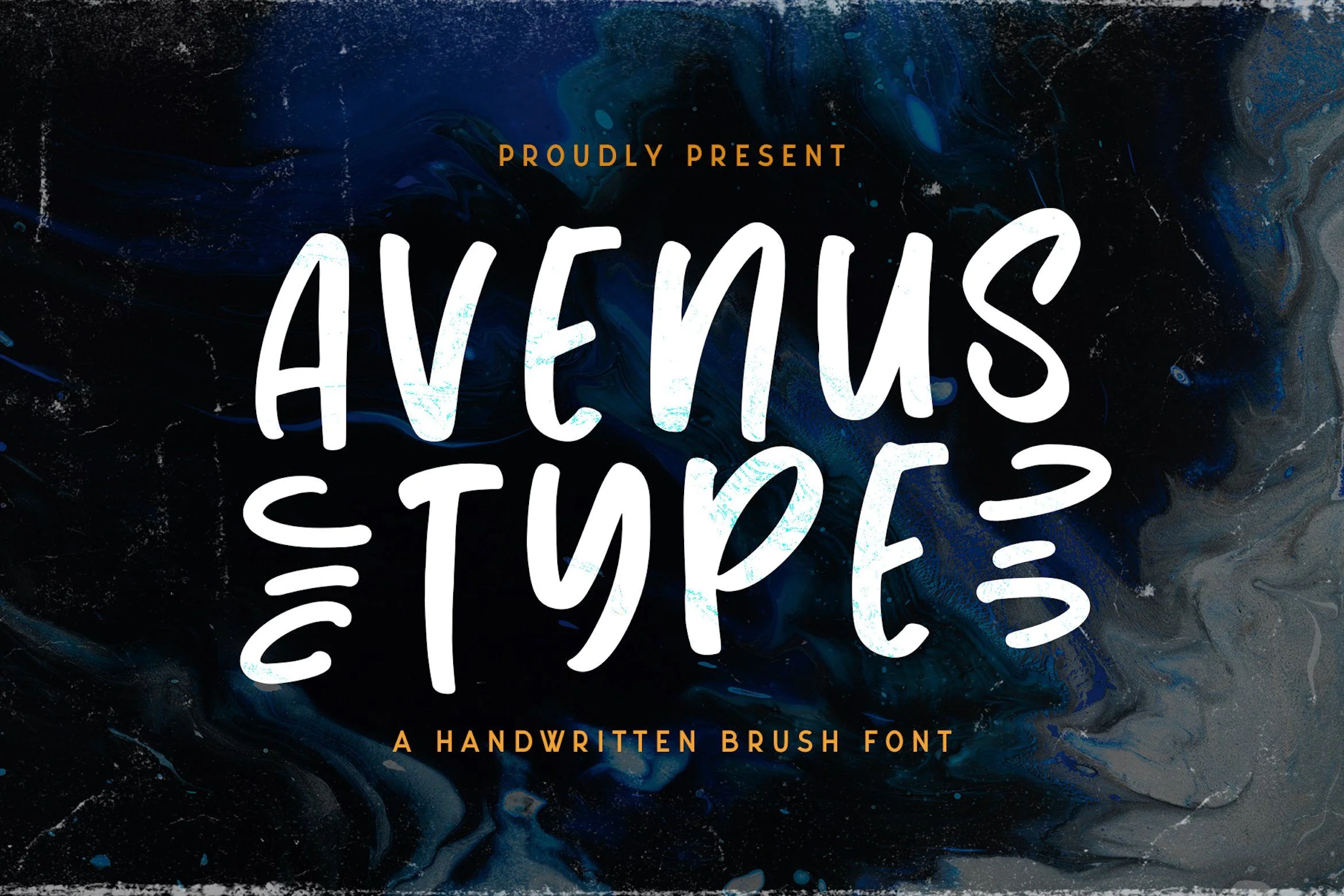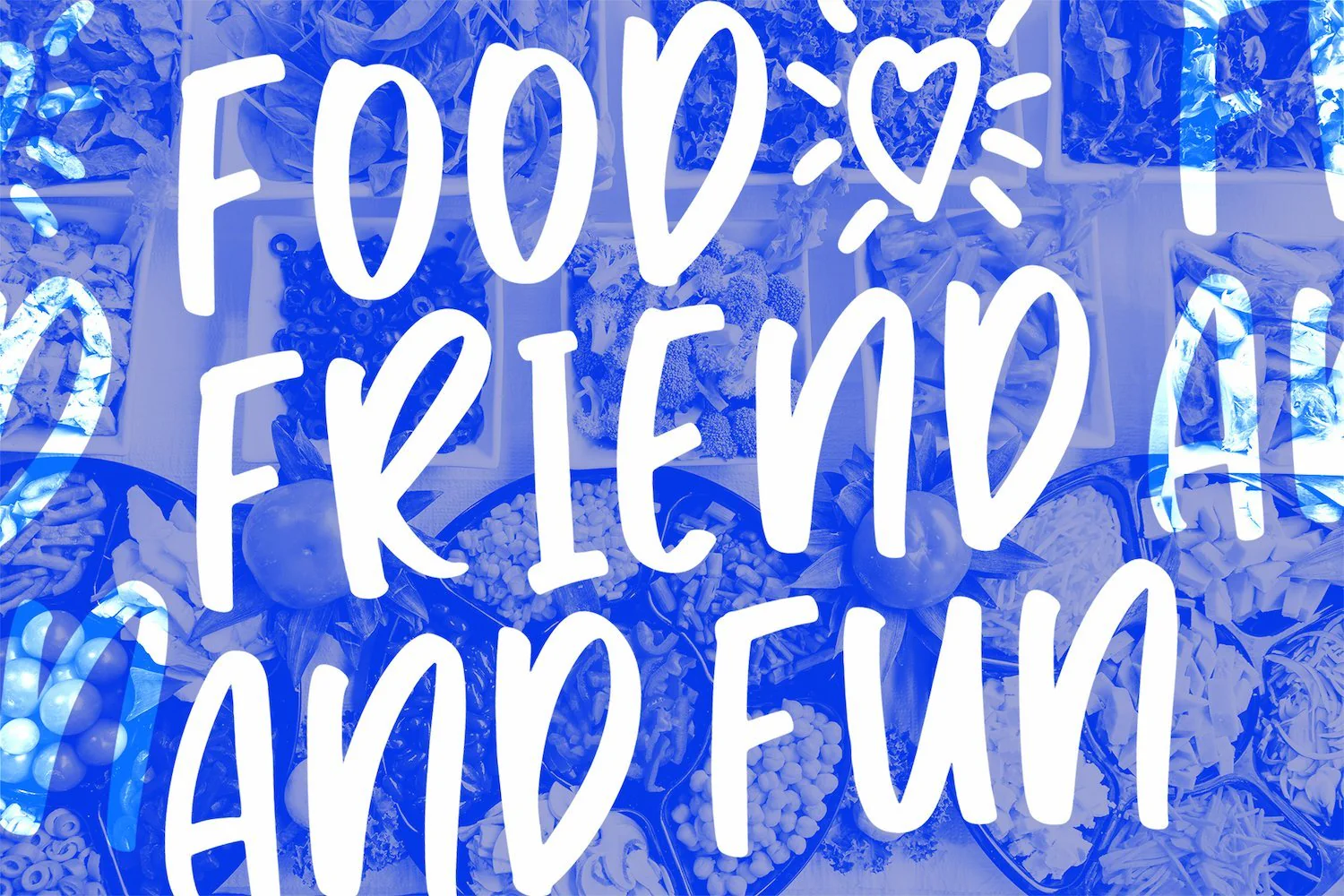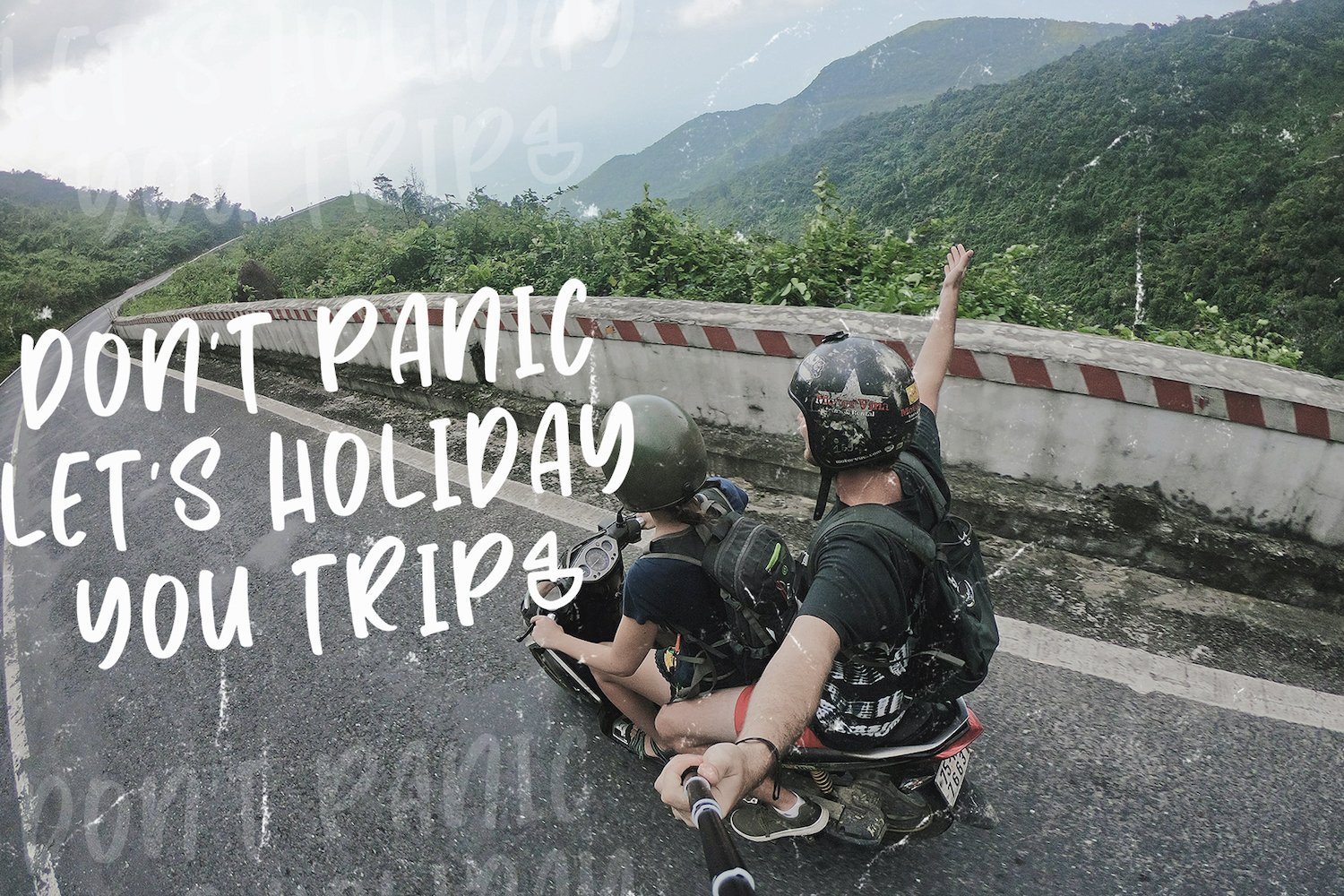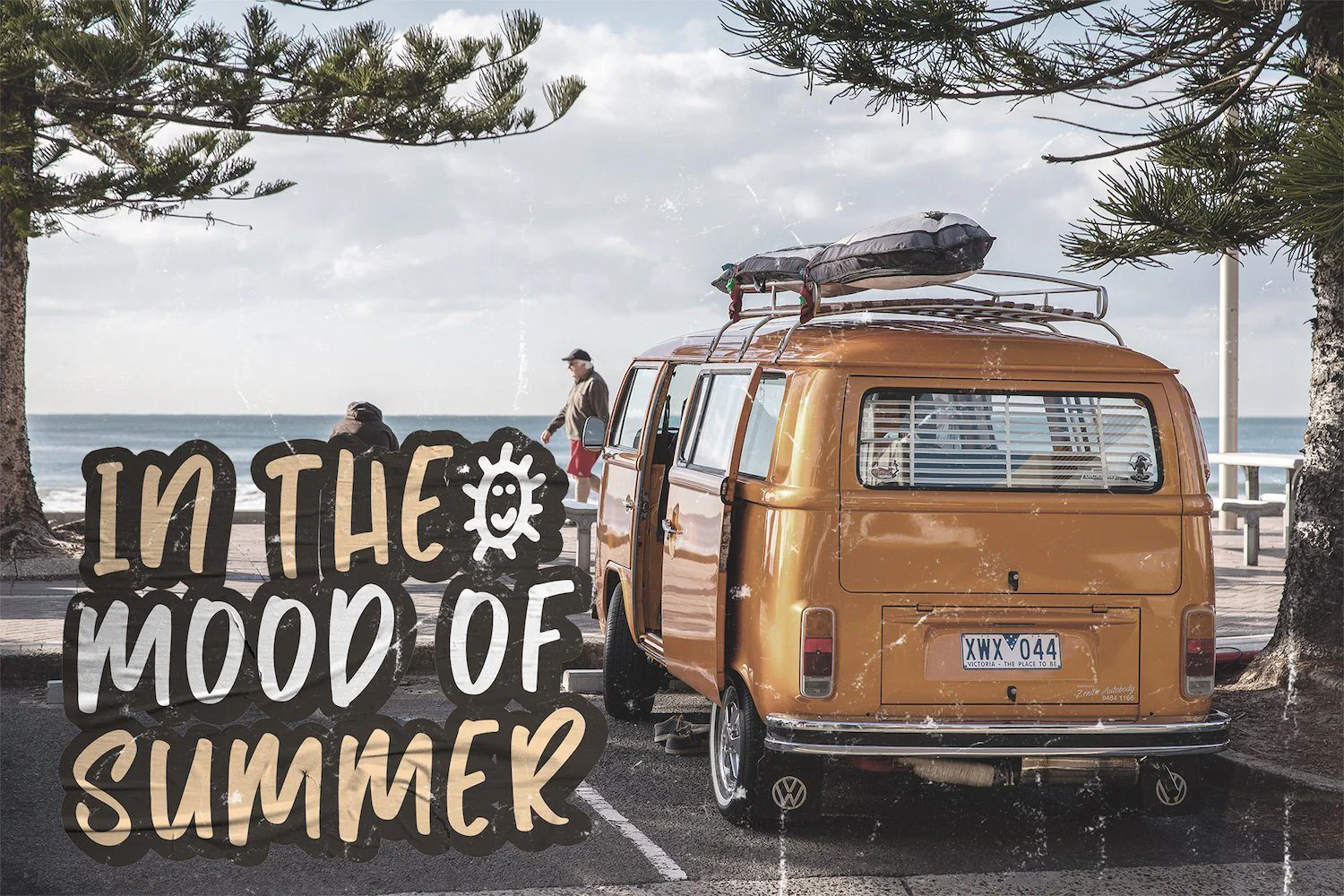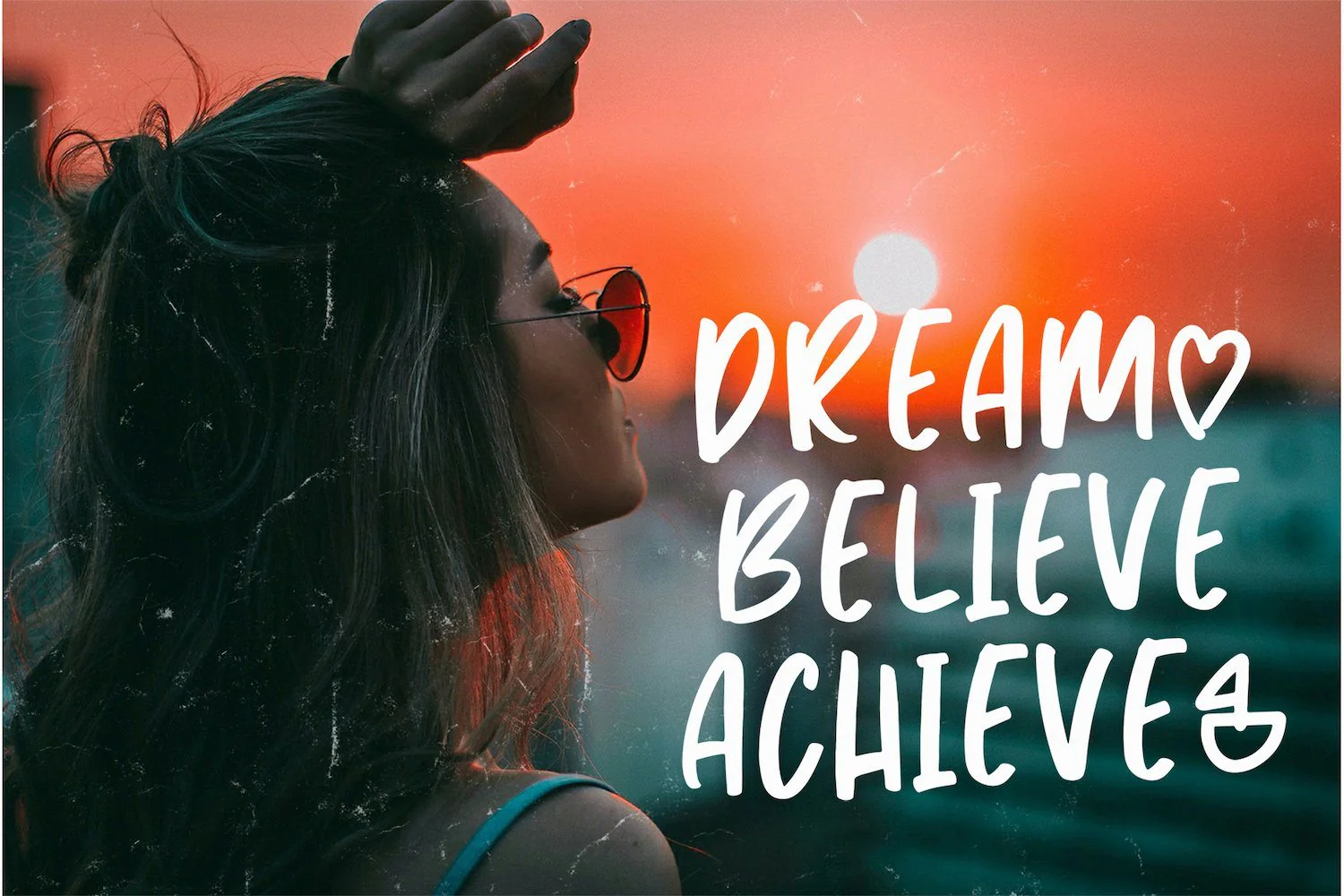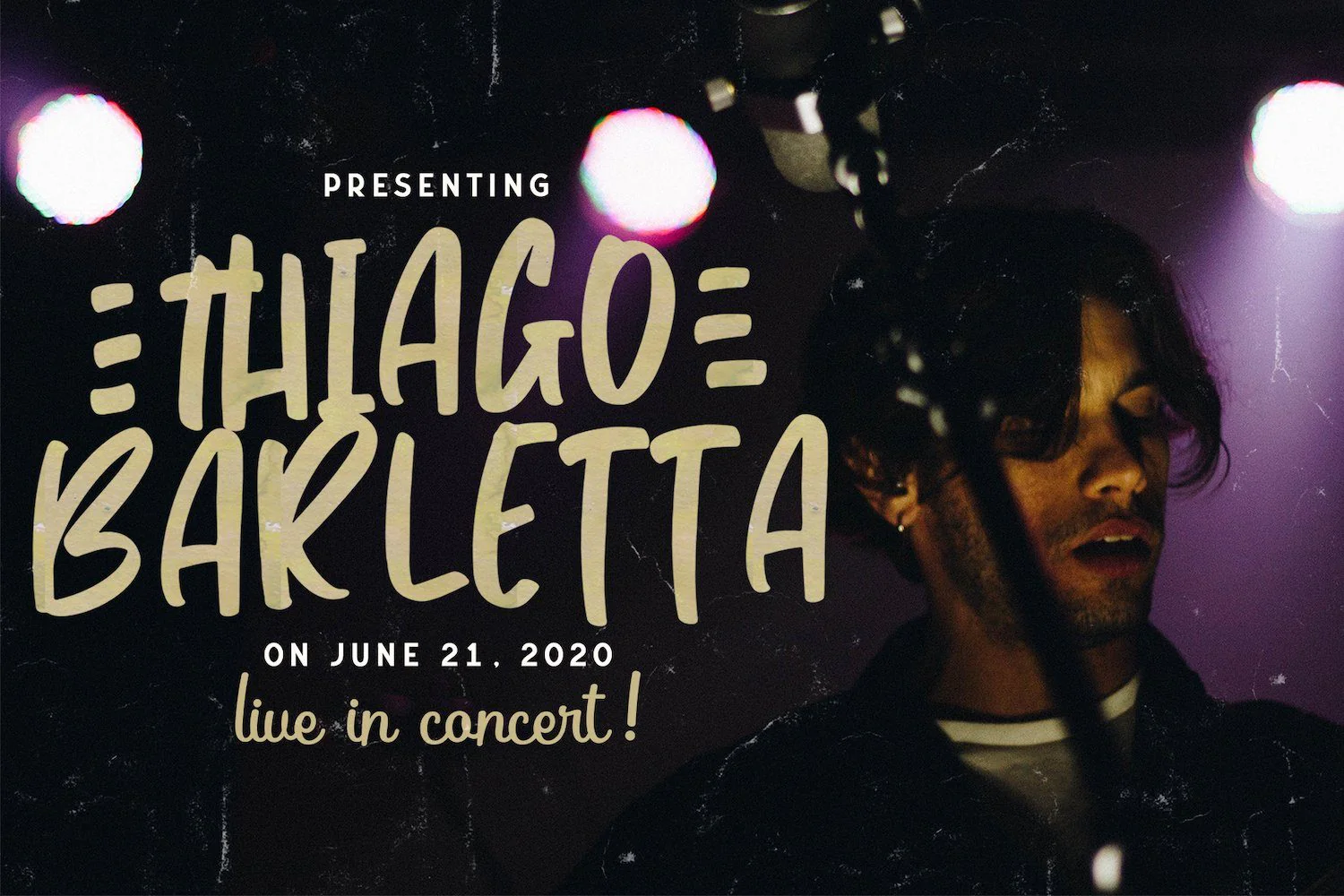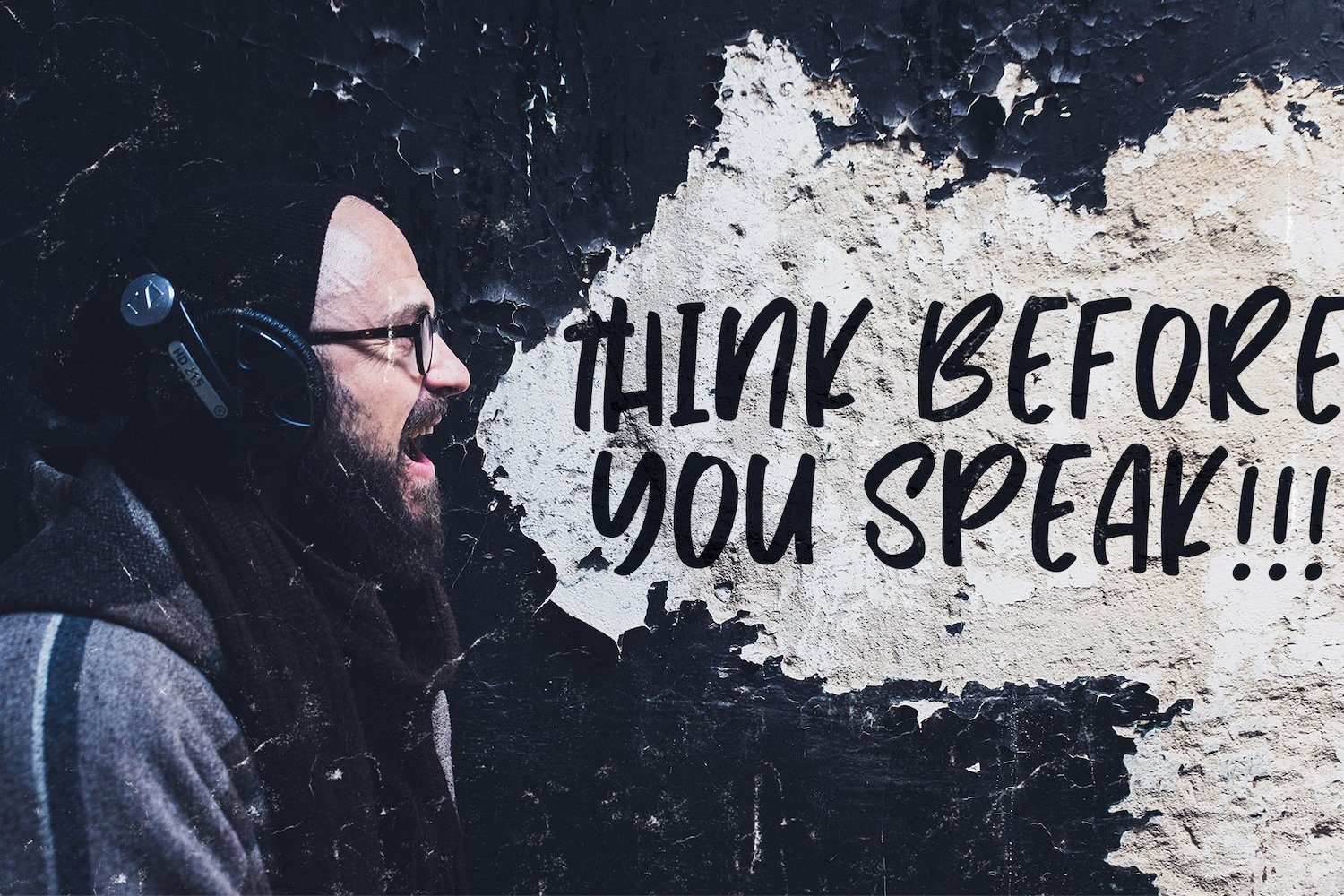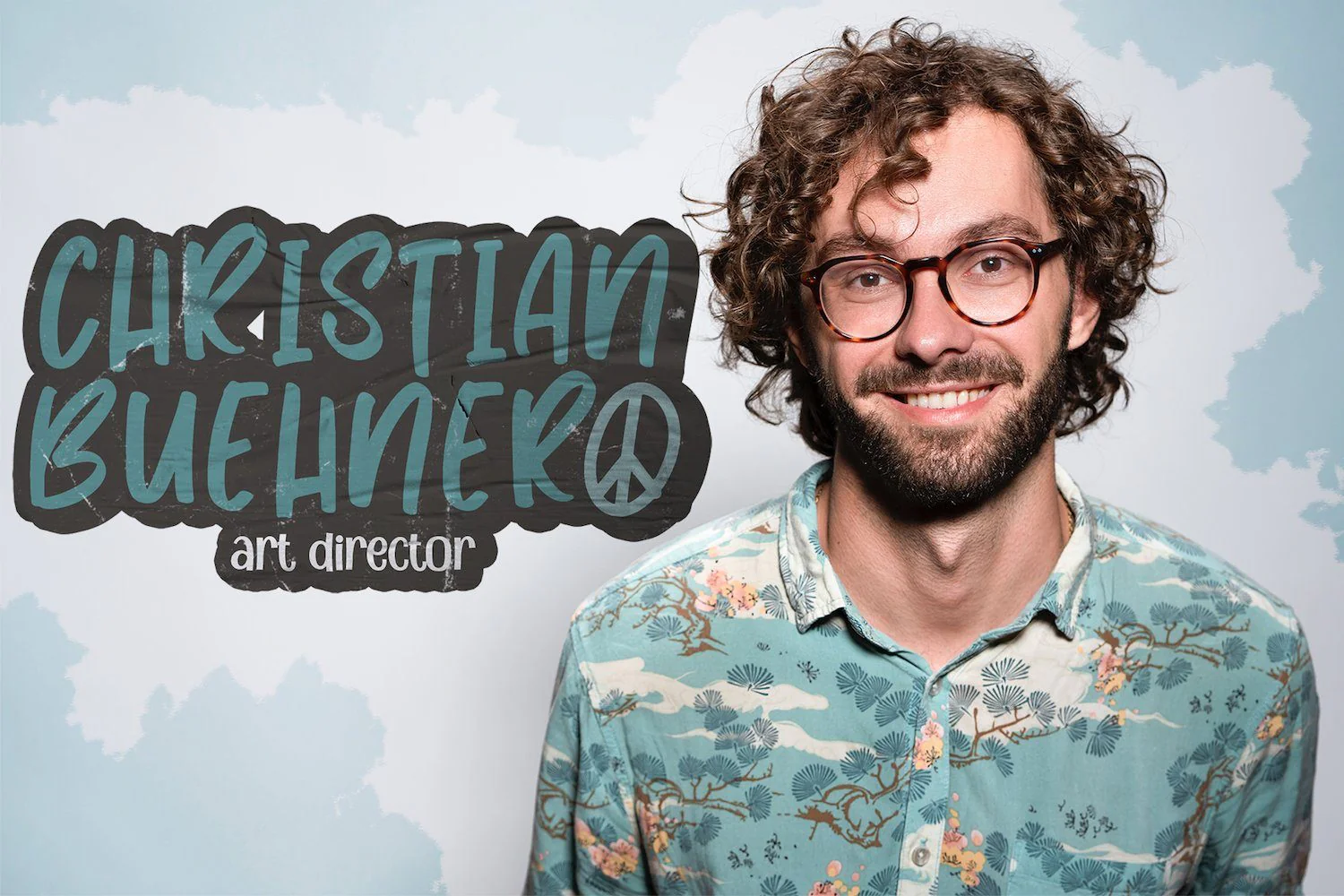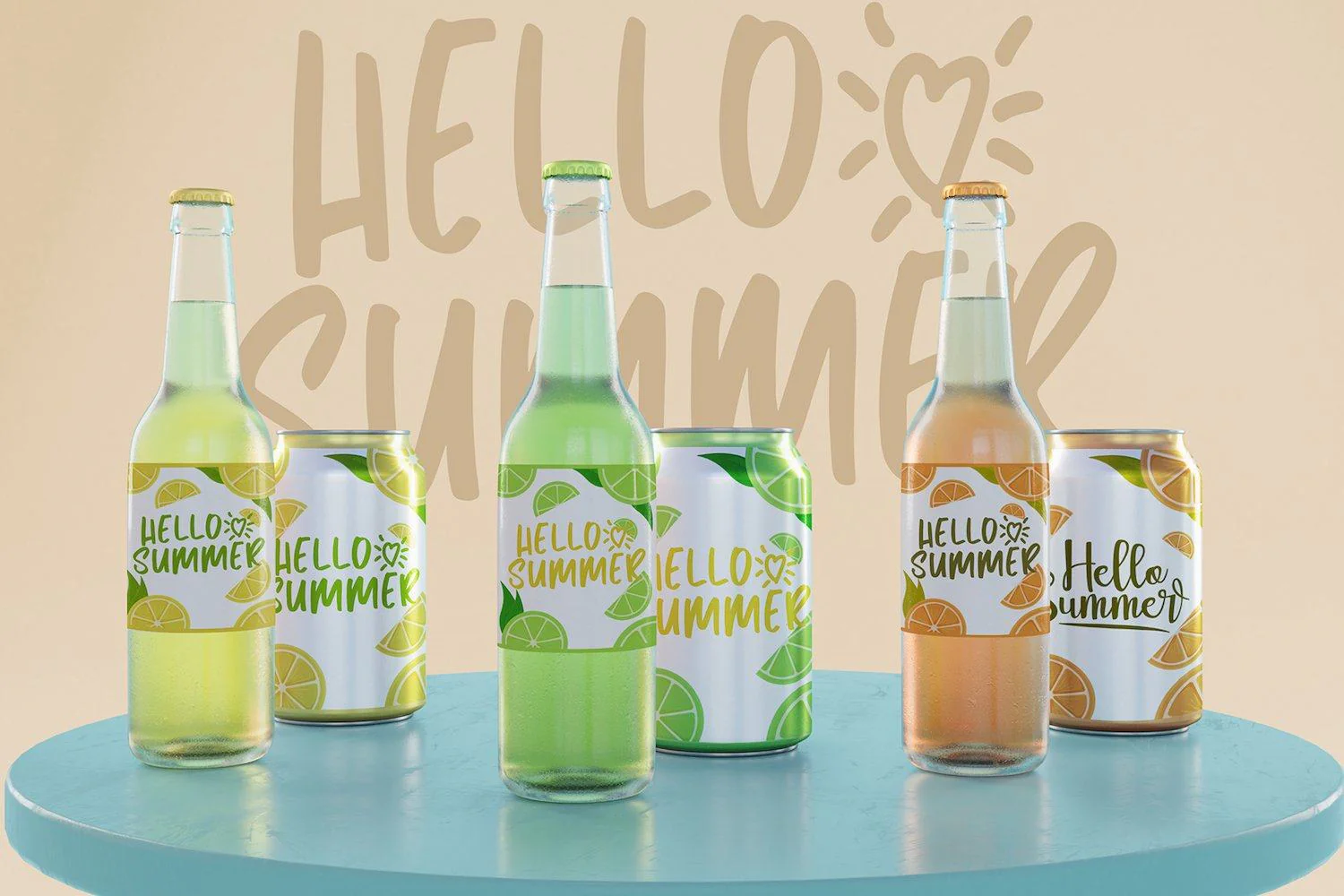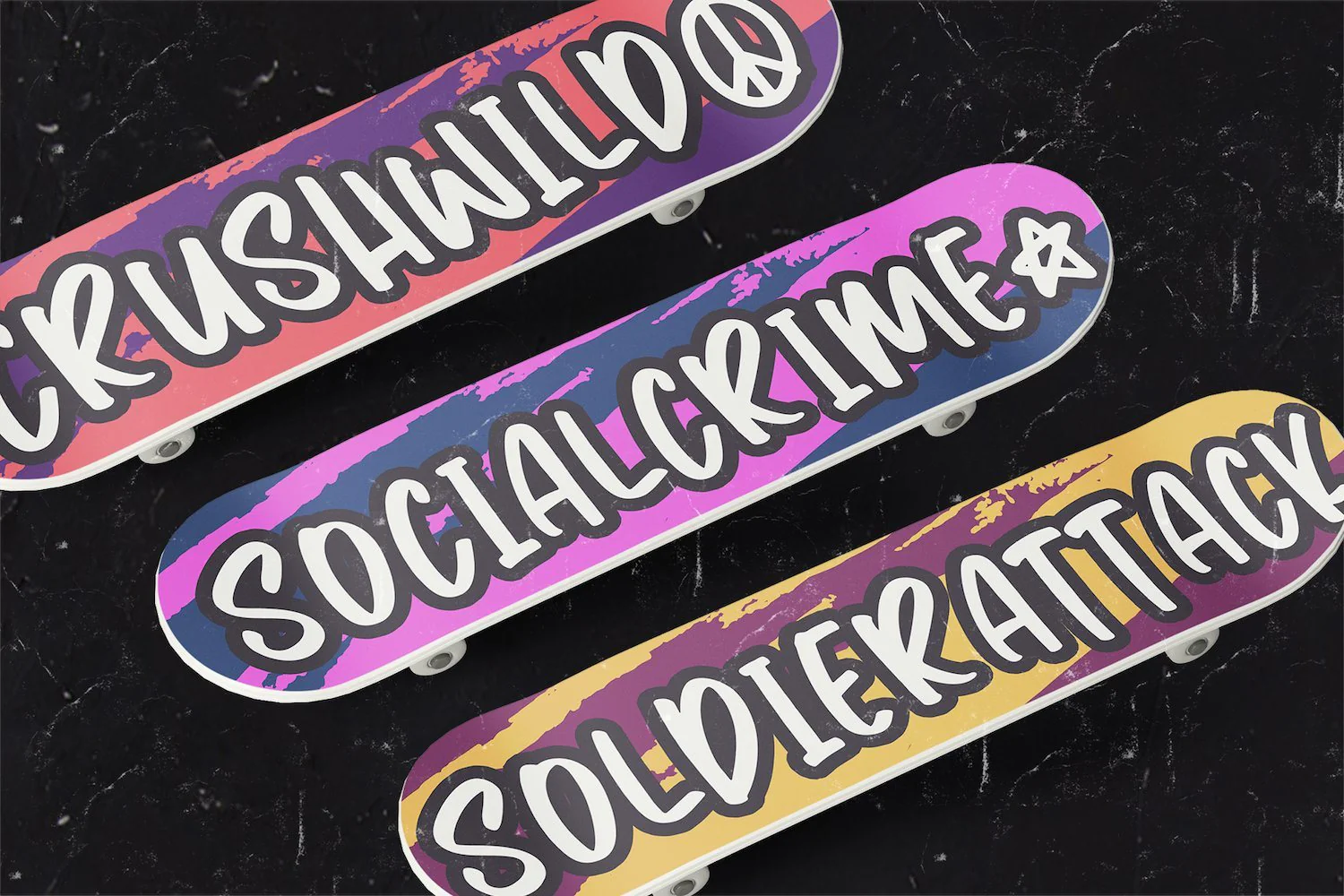
Avenus Type - Quirky Display Font
Introducing Avenus Type - Quirky Display Font
Avenus Type is a cute and quirky display font. Its friendly feel makes this font incredibly versatile, fitting a wide range of contexts. Add it to your creative ideas and notice how it makes them stand out!
- Bonus Symbol
Introducing Avenus Type - Quirky Display Font
Avenus Type is a cute and quirky display font. Its friendly feel makes this font incredibly versatile, fitting a wide range of contexts. Add it to your creative ideas and notice how it makes them stand out!
- Bonus Symbol